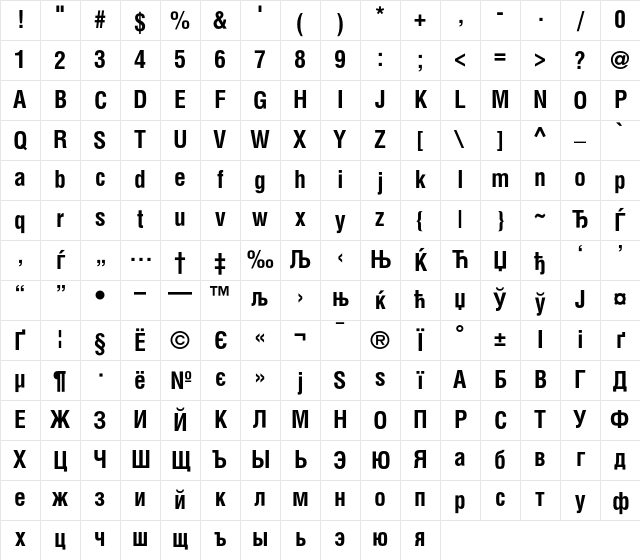
Complete AGLettericaCondensed Bold glyph index. Displaying only characters natively supported by AGLettericaCondensed Bold font.
AGLettericaCondensed is a composed and adaptable typeface that performs quietly and consistently across a wide range of design contexts. Its bold stroke weight gives it real presence on the page. Its narrow stance lets it pack a punch even in space-constrained designs.